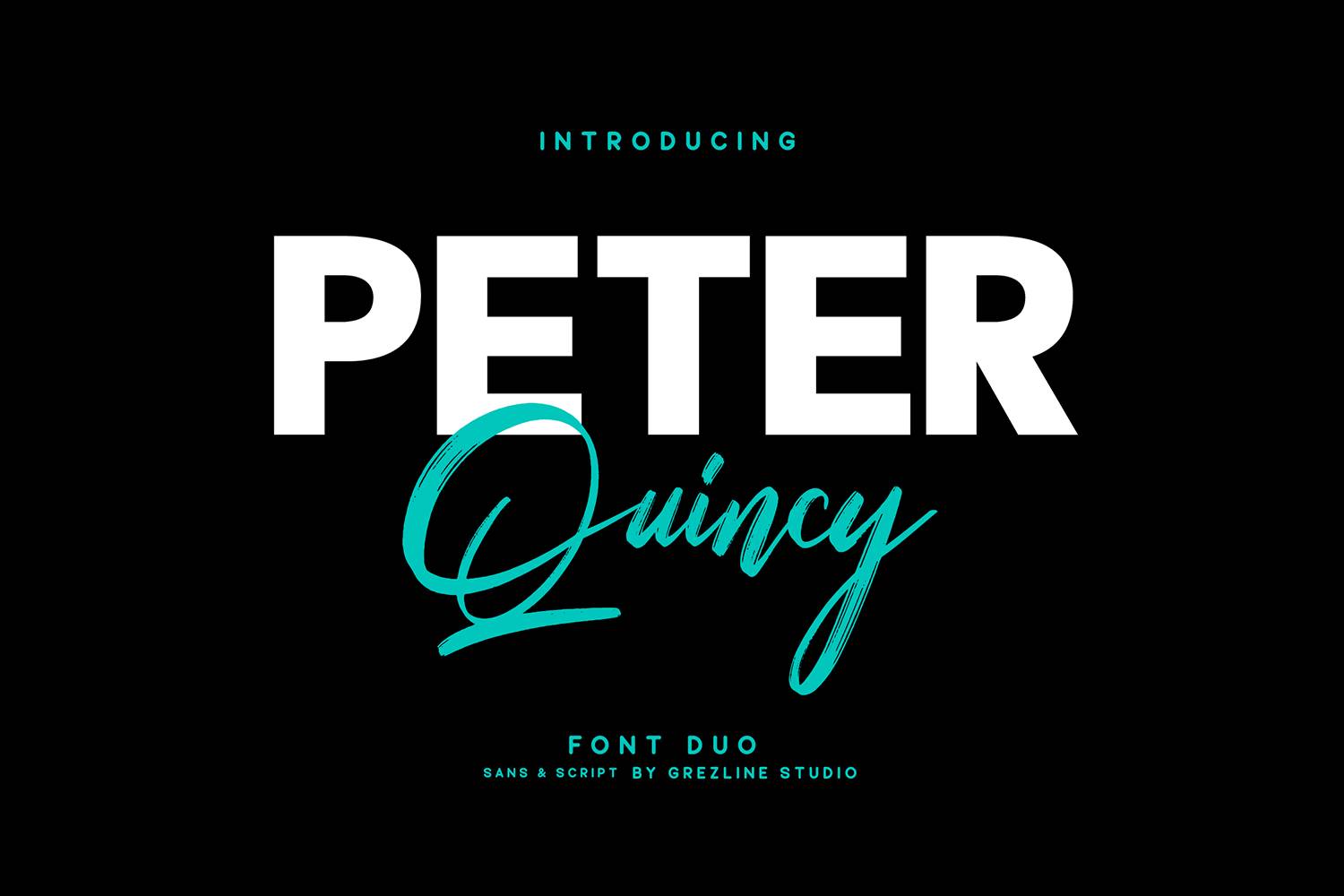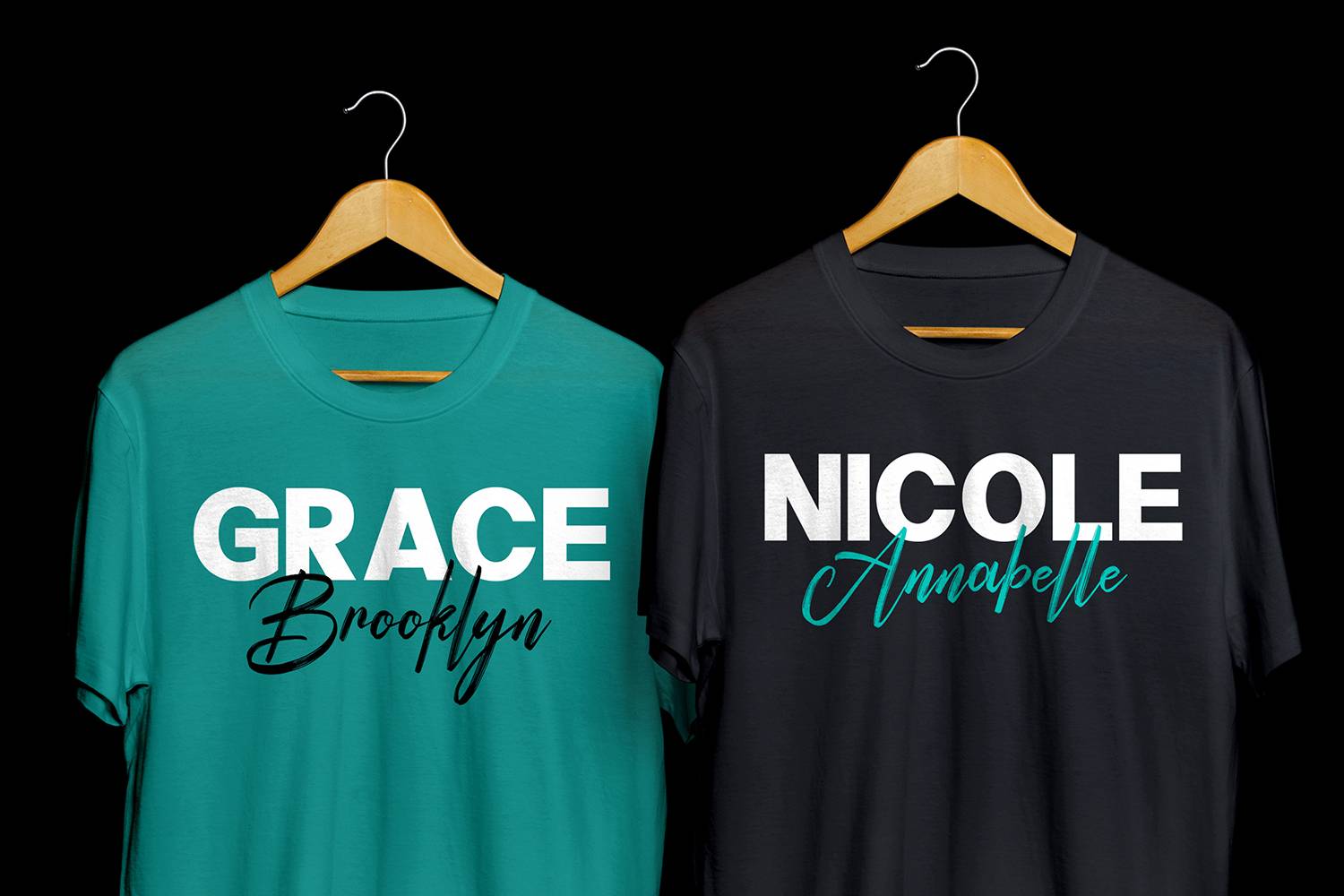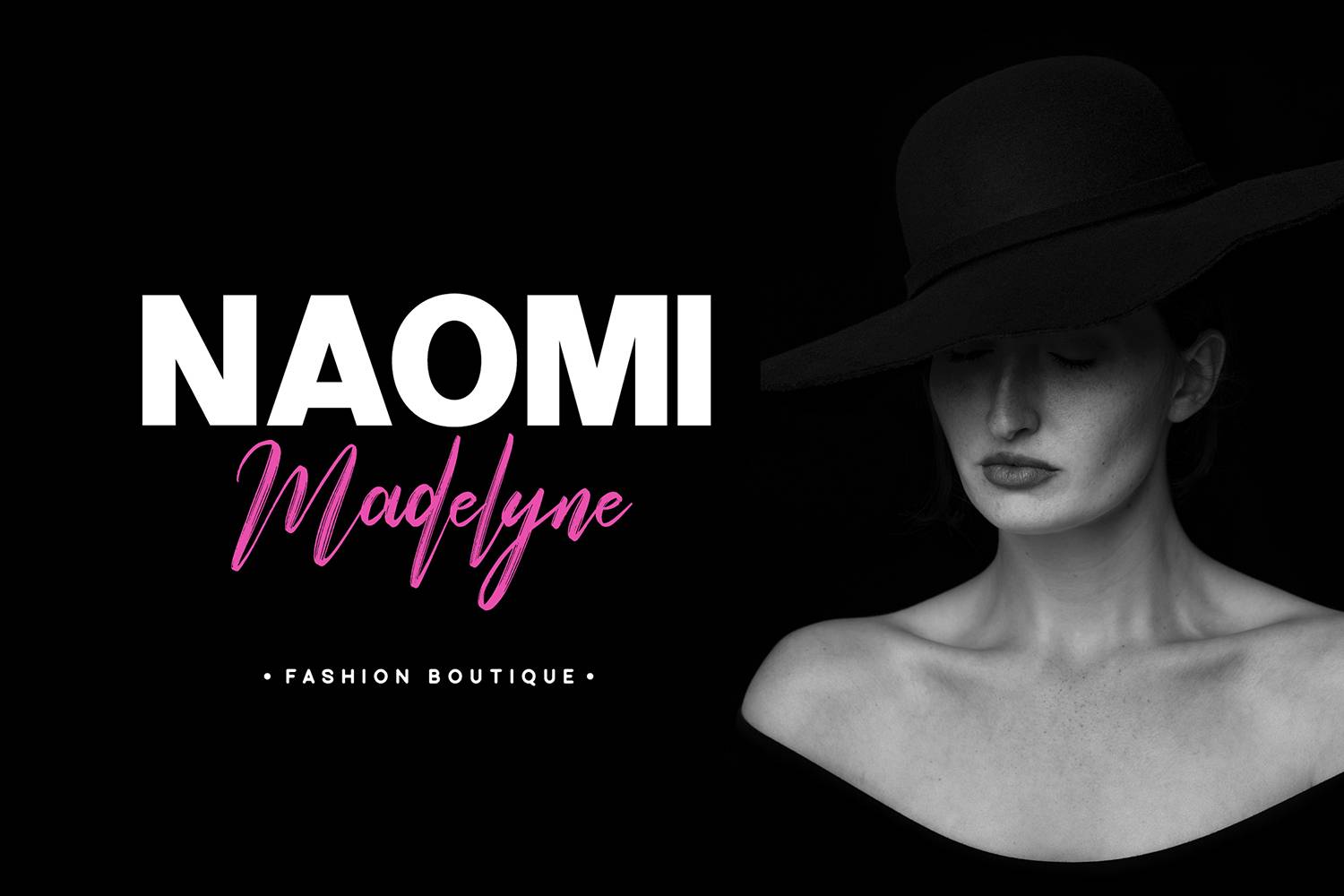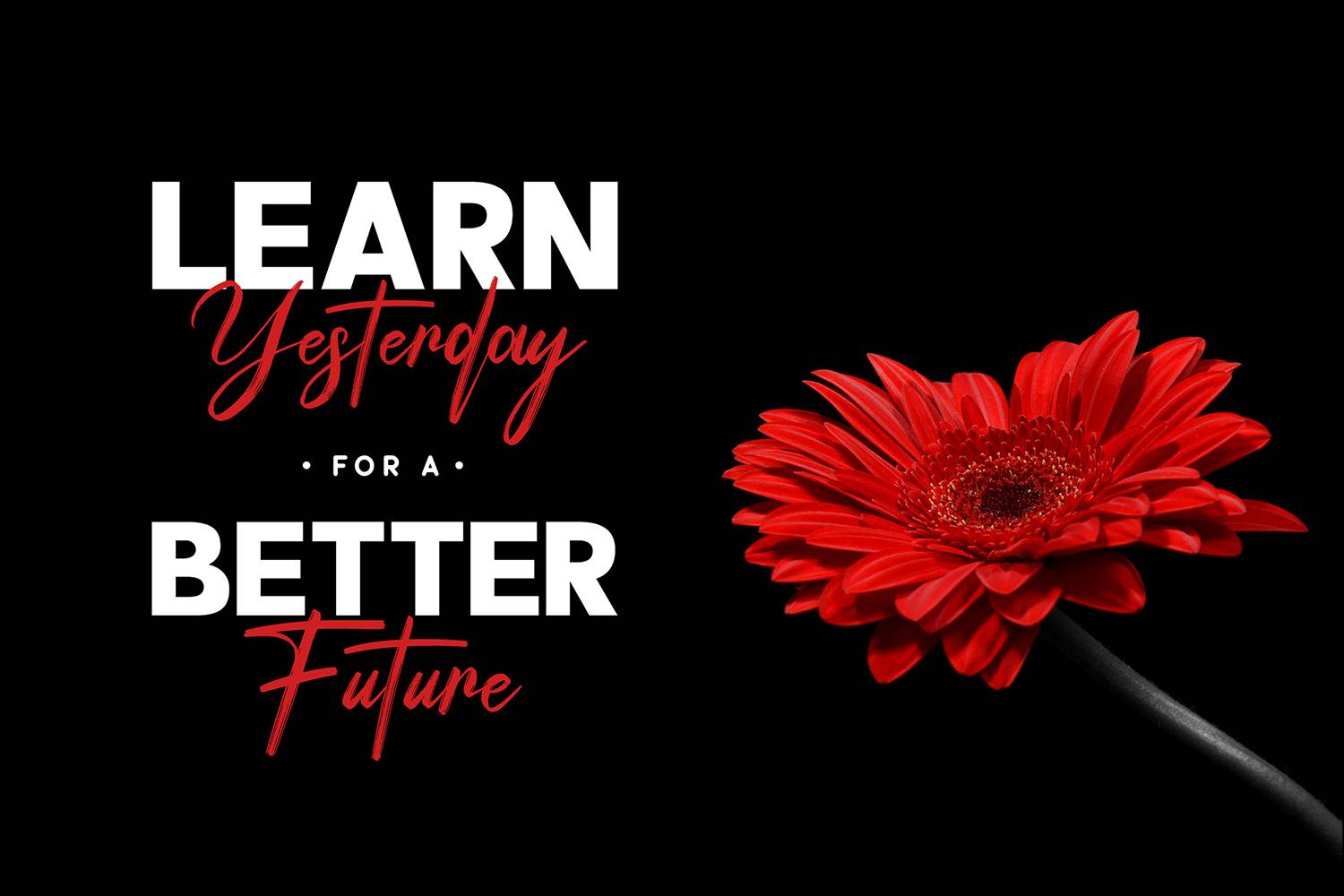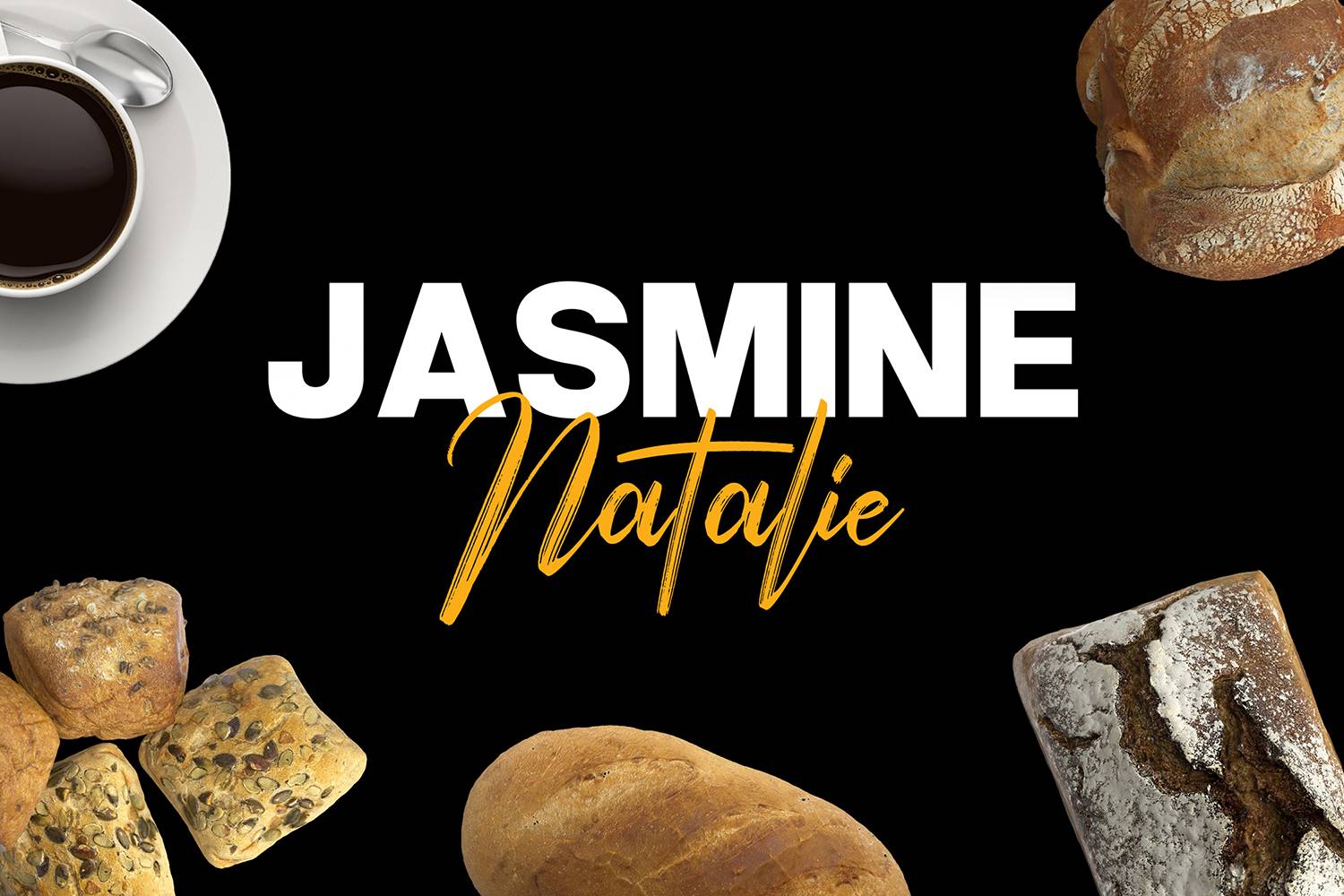
Peter Quincy is a stylish script font that blends elegant, hand-drawn calligraphy with a modern flair. Its flowing, slightly textured strokes and graceful letterforms give it a personal yet sophisticated feel, making it ideal for branding, invitations, and creative projects that need a touch of warmth and charm. This font works best in designs where a natural, expressive handwritten look is desired without sacrificing readability.
Peter Quincy Font
About Peter Quincy Font
| Font family | Peter Quincy Font |
| Designer | Akhmad Reza Fauzi |